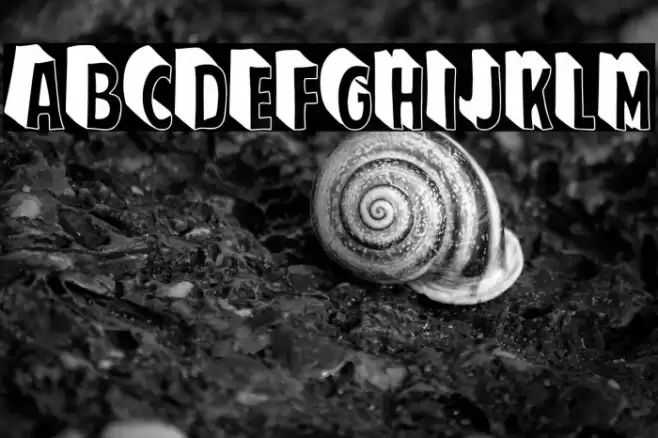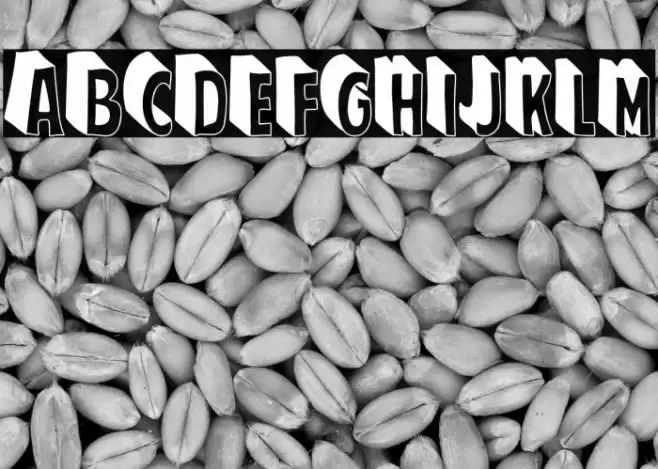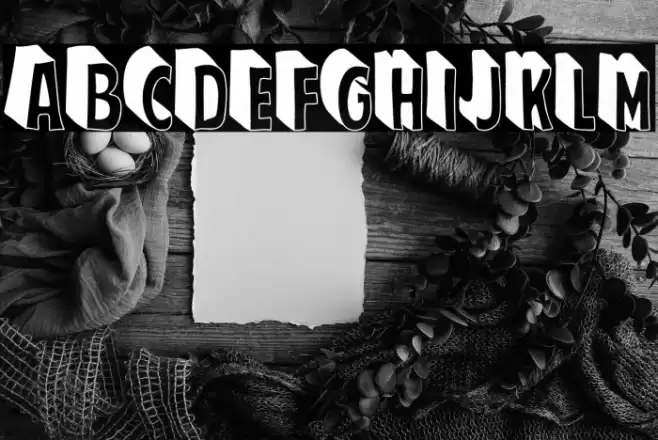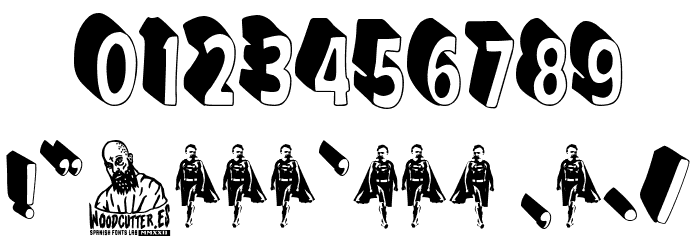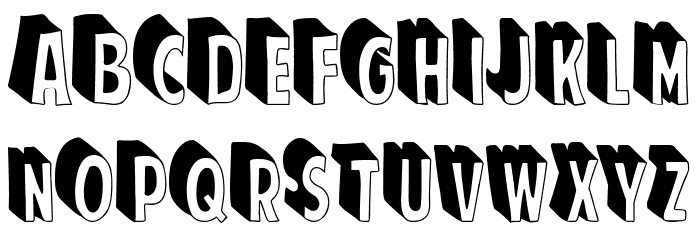
El Super Hombre Font
El Super Hombre Description
This bold, decorative font features a dynamic 3D shadow effect that gives each character a sense of depth and movement. The uppercase letters are prominent and eye-catching, making them ideal for attention-grabbing headlines or titles. The font maintains a consistent thickness throughout, with a playful and energetic style that evokes a sense of fun and creativity. The numbers and special characters are designed to match the boldness of the letters, ensuring a cohesive look across all text. This font is perfect for projects that require a strong visual impact.
A bold, 3D shadowed decorative font with a playful and dynamic style from Kids fonts.
- Font: El Super Hombre
- Proposed Projects: Ideal for comic book titles, posters, video game graphics, and any project needing a bold, energetic typeface.